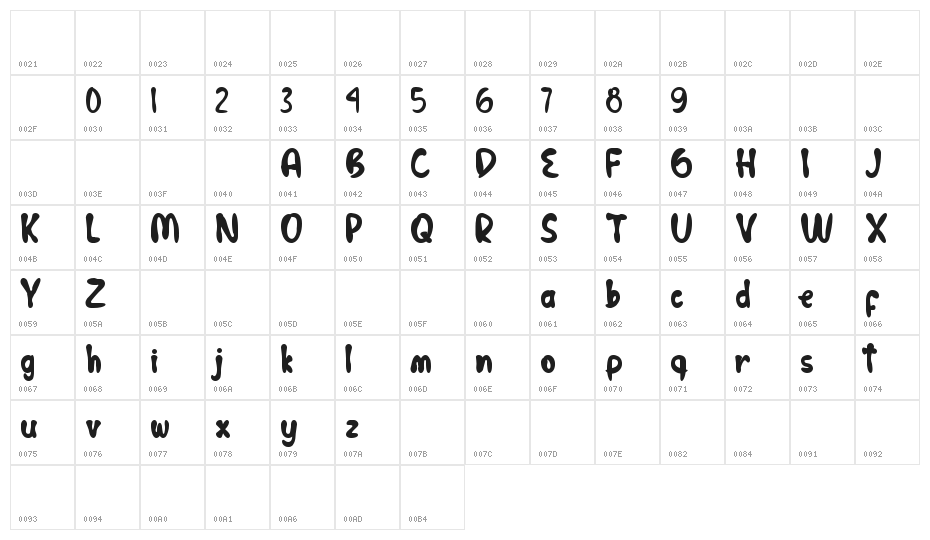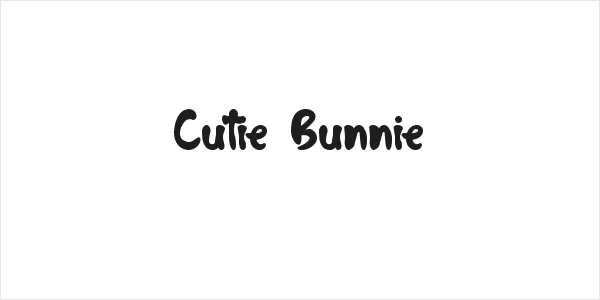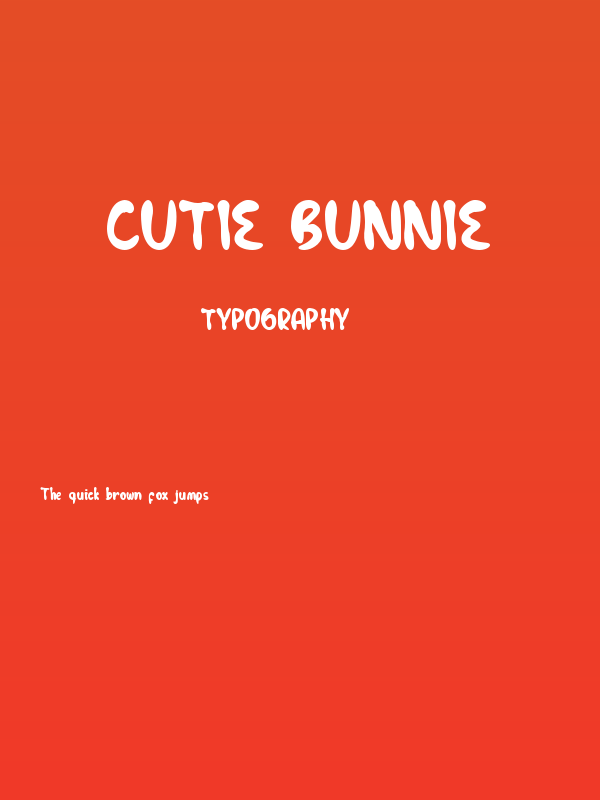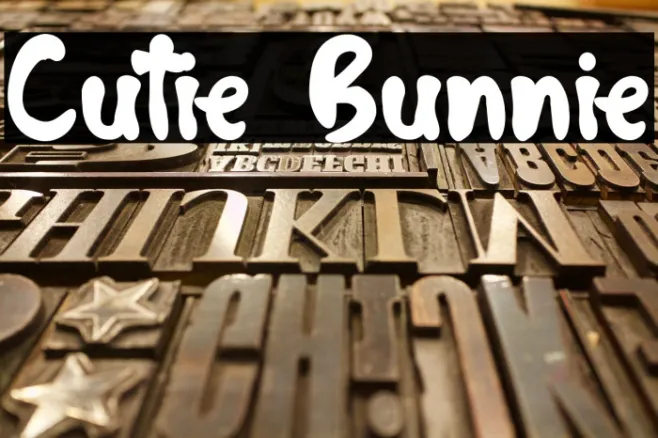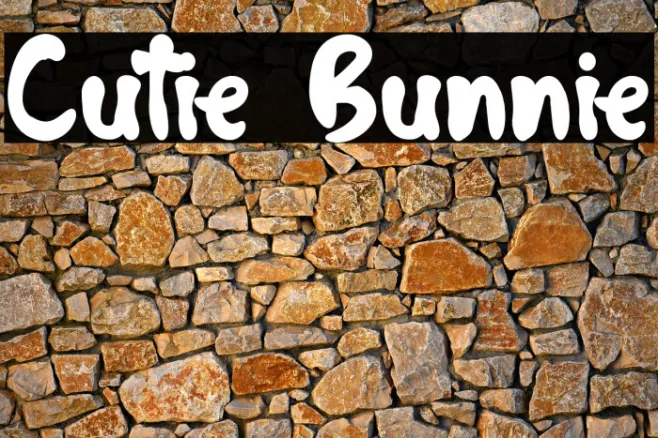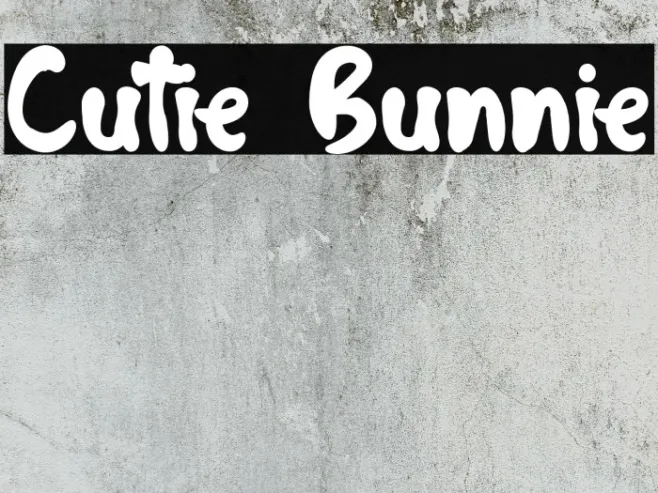
Cutie Bunnie Font
Cutie Bunnie Description
This playful and whimsical font features bold, rounded characters with a hand-drawn appearance. The letters are slightly irregular, adding to the charm and uniqueness of the style. The uppercase and lowercase letters maintain a consistent weight, while the numbers and special characters are designed to match the overall aesthetic. The font's bubbly and friendly nature makes it ideal for projects that require a fun and approachable look. Its thick strokes and rounded edges give it a soft, inviting feel, perfect for children's books, playful branding, or casual invitations.
| Proposed Projects | Ideal for children's books, playful branding, casual invitations, and fun posters. |